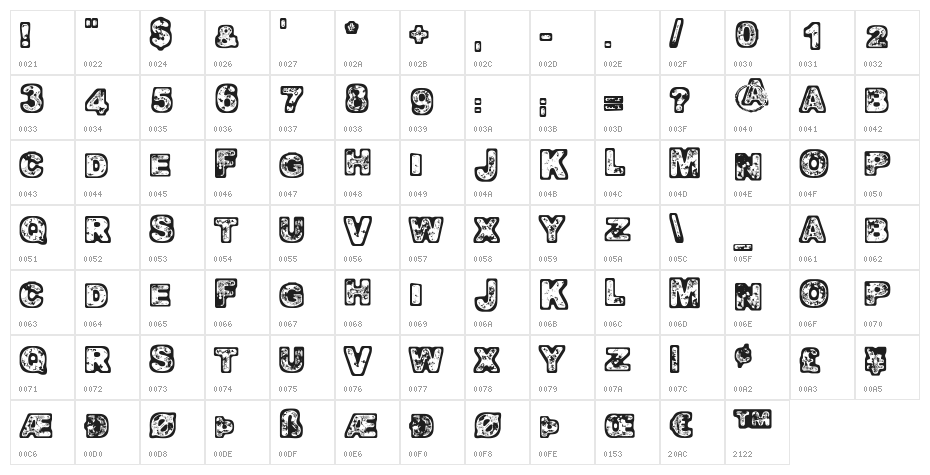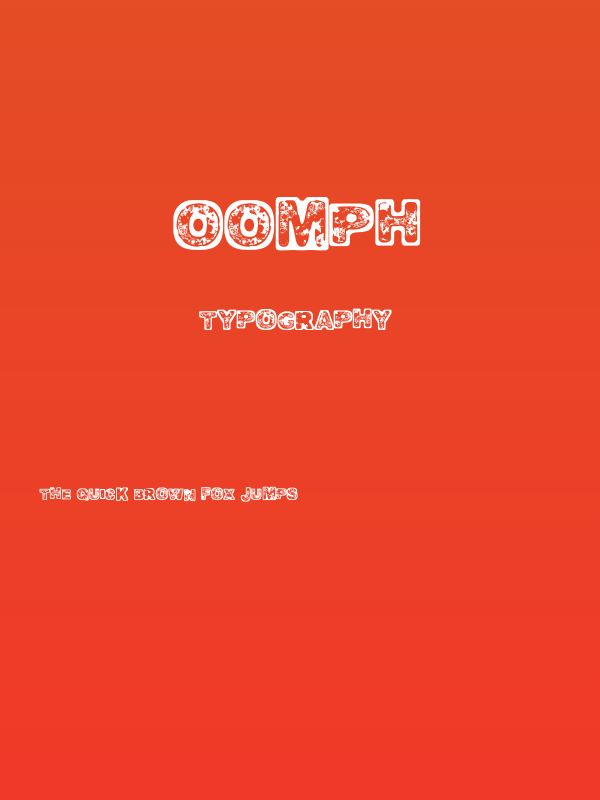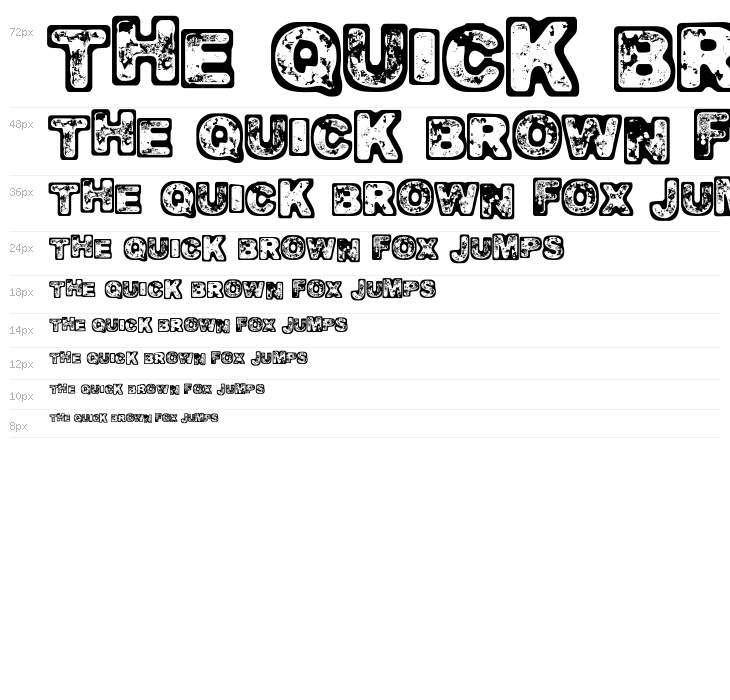
Oomph Font
Oomph Description
This font features a bold, distressed style with a textured, grunge appearance. Each character is heavily outlined, giving it a strong presence. The letters are uppercase and have a slightly rounded shape, contributing to a playful yet rugged aesthetic. The distressed effect varies across the characters, adding a unique, handcrafted feel. This font is ideal for projects that require a bold statement or a vintage, worn look. The numbers and special characters maintain the same distressed style, ensuring consistency throughout the typeface.
| Proposed Projects | Ideal for posters, album covers, branding, and any design needing a bold, vintage look. |